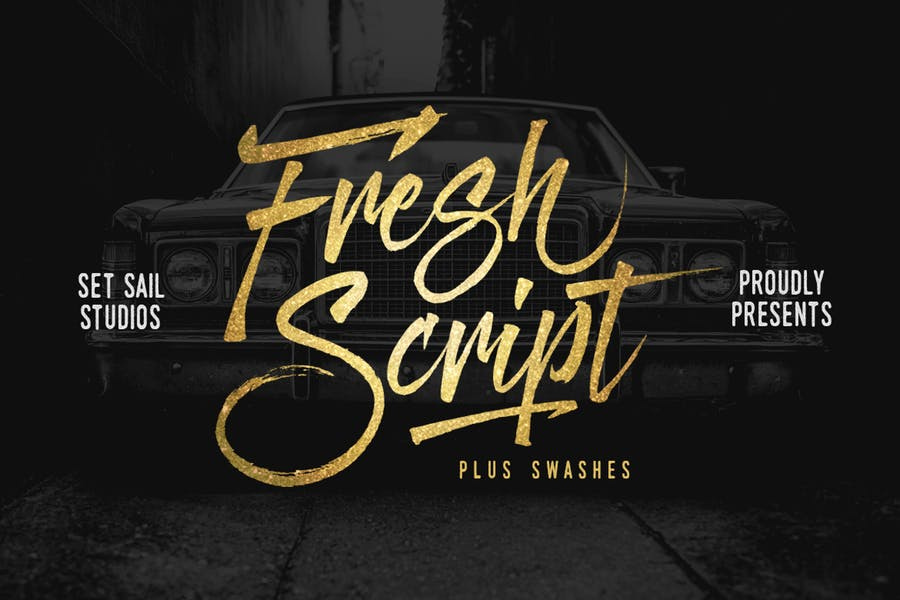
Fresh Script Font
Fresh Script Font is perfect for wedding invitations, greeting cards, logo design, branding projects, social media graphics, handwritten quotes, personal stationery, restaurant menus, boutique signage, and elegant packaging design.
Fresh Script Font is exciting because it perfectly captures the authentic beauty of hand-lettered calligraphy with modern digital precision. This font brings an organic, flowing elegance to any project, making it ideal for brands and designs that want to convey sophistication, creativity, and personal touch. Its natural brush strokes and flowing connections create a sense of movement and life that static fonts simply cannot match.
Fresh Script Font family includes regular, bold, italic variations, plus decorative swashes and alternate characters, providing designers with extensive customization options for creating unique and personalized typography solutions.
This stunning script typeface combines traditional calligraphy techniques with contemporary design sensibilities, making Fresh Script Font Free Download an exceptional choice for modern creative projects. The font's fluid letterforms and natural variations mimic the organic imperfections of genuine hand-lettering, creating an authentic and warm feeling that connects emotionally with viewers.
Whether you're designing luxury brand materials, romantic wedding stationery, or artisanal product packaging, Fresh Script Font delivers the perfect balance of elegance and approachability. The font's versatility makes it suitable for both digital platforms and high-end print applications, from Instagram stories to premium business cards and elegant brochures.
Designers love Fresh Script Font for its ability to add personality and human touch to any design while maintaining excellent readability. The font works beautifully for headlines, short phrases, and decorative text elements where its character can truly shine and make a lasting impression.
The carefully crafted letterforms include subtle texture and natural flow that brings authenticity to digital designs. Each character has been meticulously designed to connect seamlessly with others, creating smooth, continuous script that feels genuinely handwritten rather than artificially constructed.